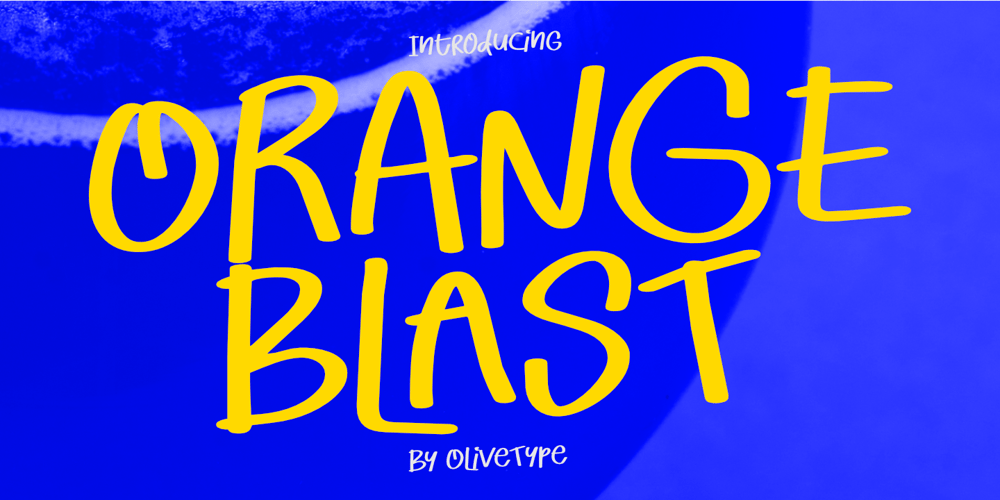
Orange Blast Font Family was designed by Nurul Hidayani and published by Olivetype. Orange Blast contains 1 styles and family package options. Experience the vibrant energy of Orange Blast, a playful handwritten display font that can make your designs pop! With its bold and dynamic strokes, this font is perfect for adding a playful yet professional touch to any project. Whether you’re designing logos, posters, or social media graphics, Orange Blast delivers a burst of creativity that captivates and engages your audience.Orange Blast features : Standard Latin Numbers, symbols, and punctuations Multilingual Support. Fully accessible without additional design software Simple Installations Works on PC & Mac Thank You.